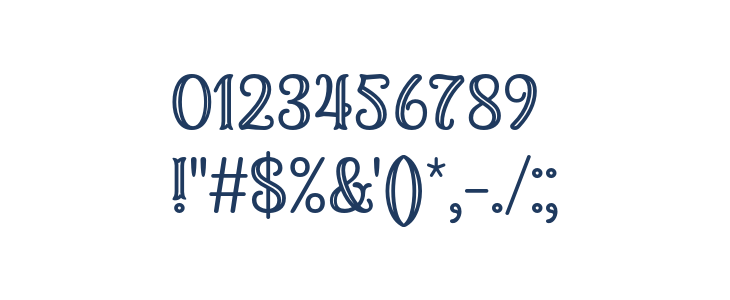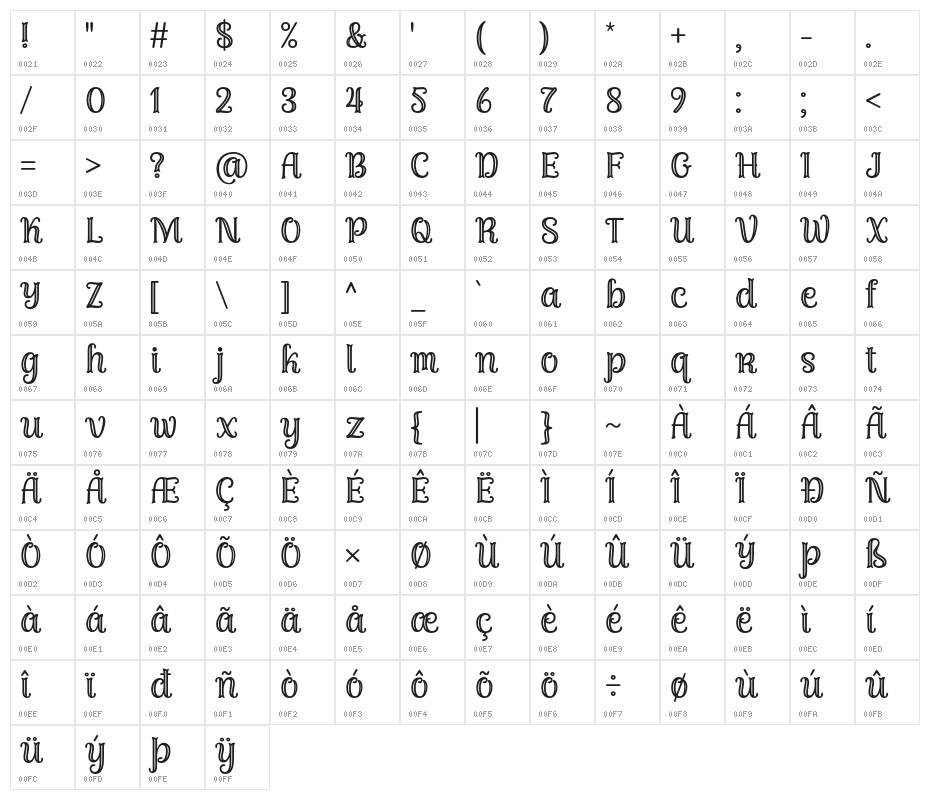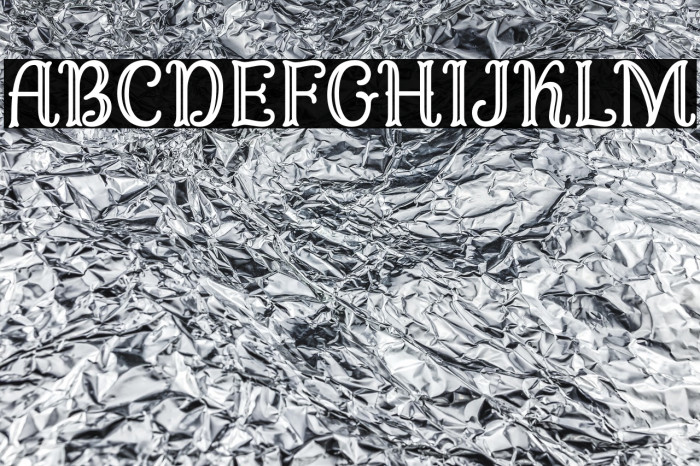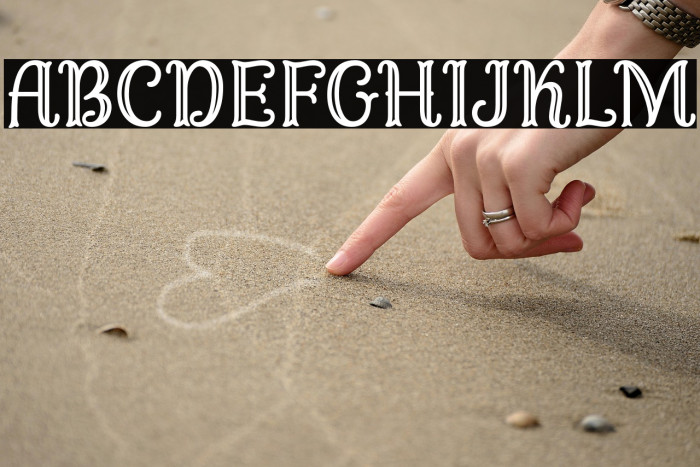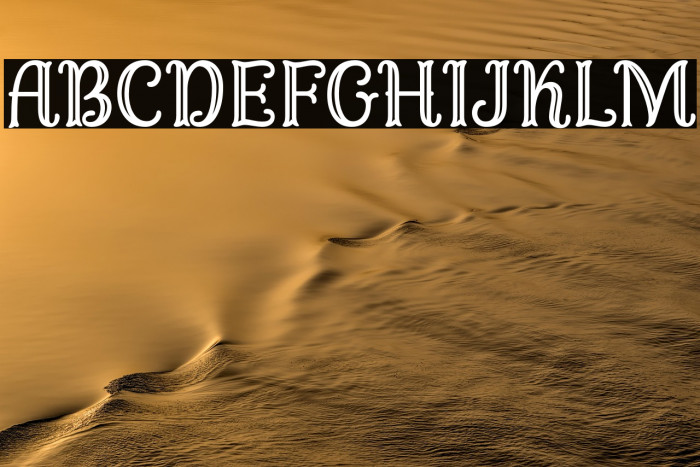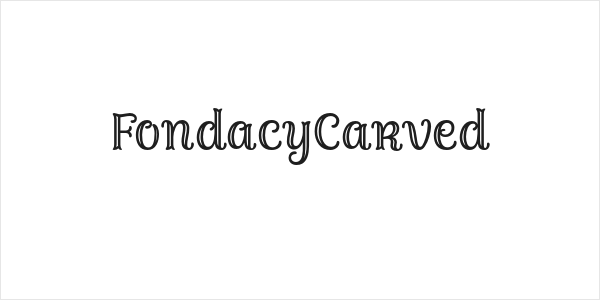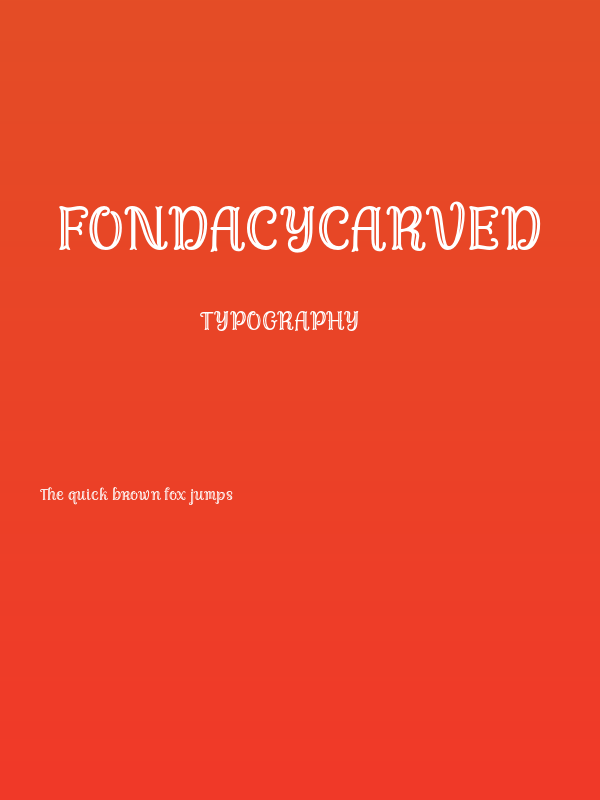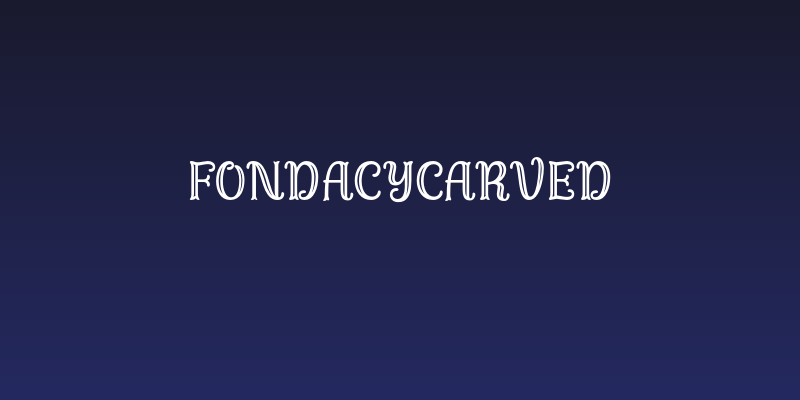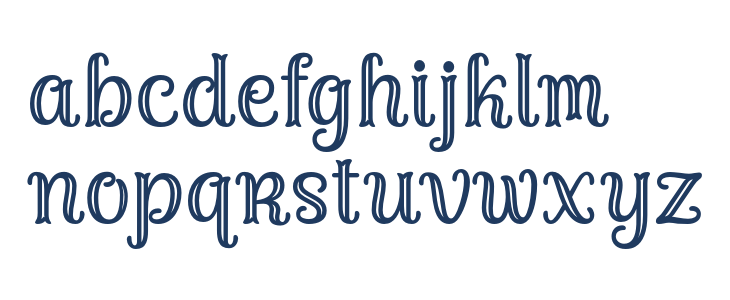
FondacyCarved Font
FondacyCarved Description
This font features a unique carved appearance with a decorative flair. The characters are bold and have a distinct outline that gives them a three-dimensional look. The uppercase letters are tall and elegant, while the lowercase letters maintain a consistent style with slight curves and embellishments. The numbers are equally stylized, matching the overall aesthetic of the alphabet. Special characters are included, each designed with the same intricate detailing. This font is perfect for projects that require a touch of sophistication and creativity.
| Proposed Projects | Ideal for branding, poster design, invitations, and any project needing a decorative touch. |